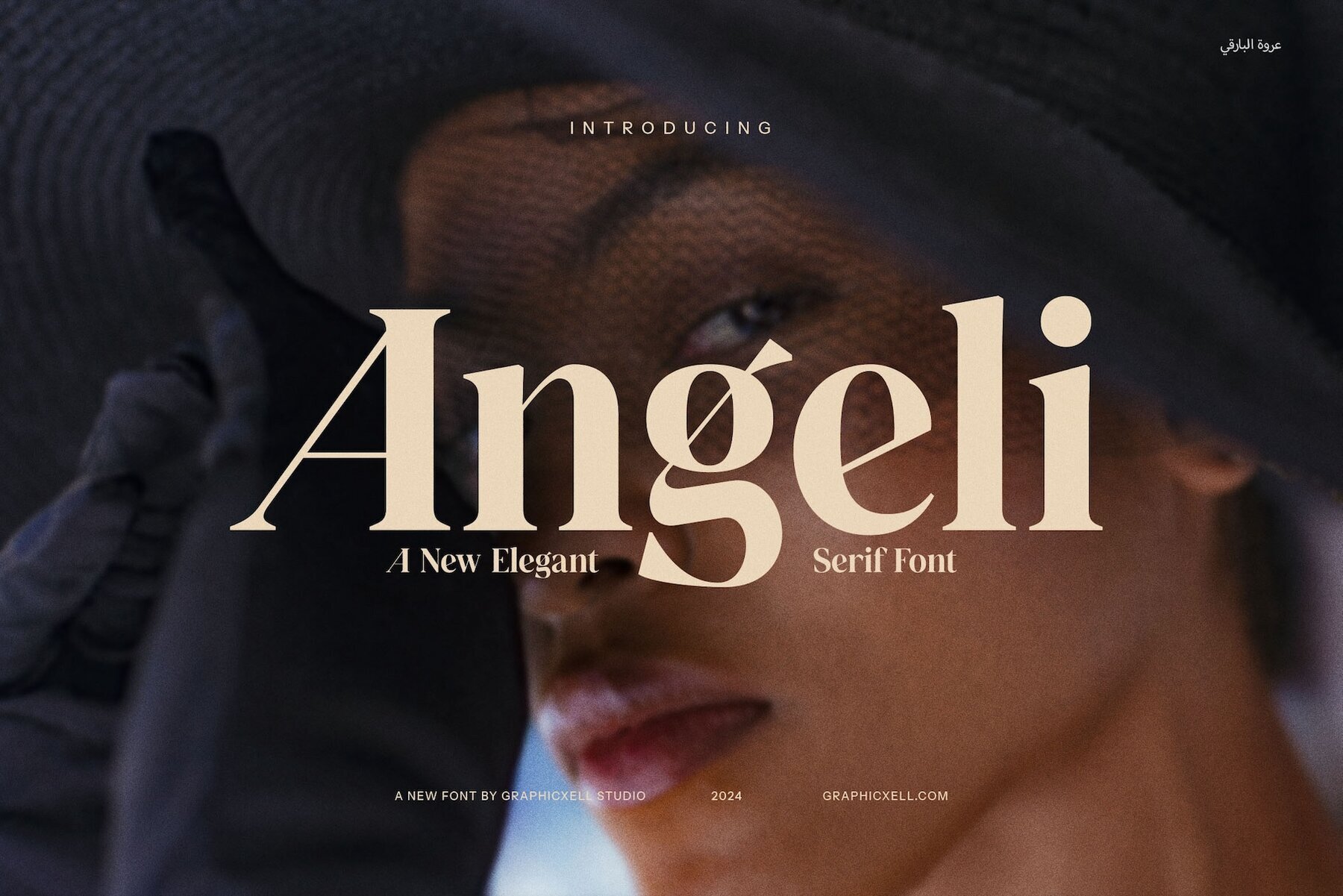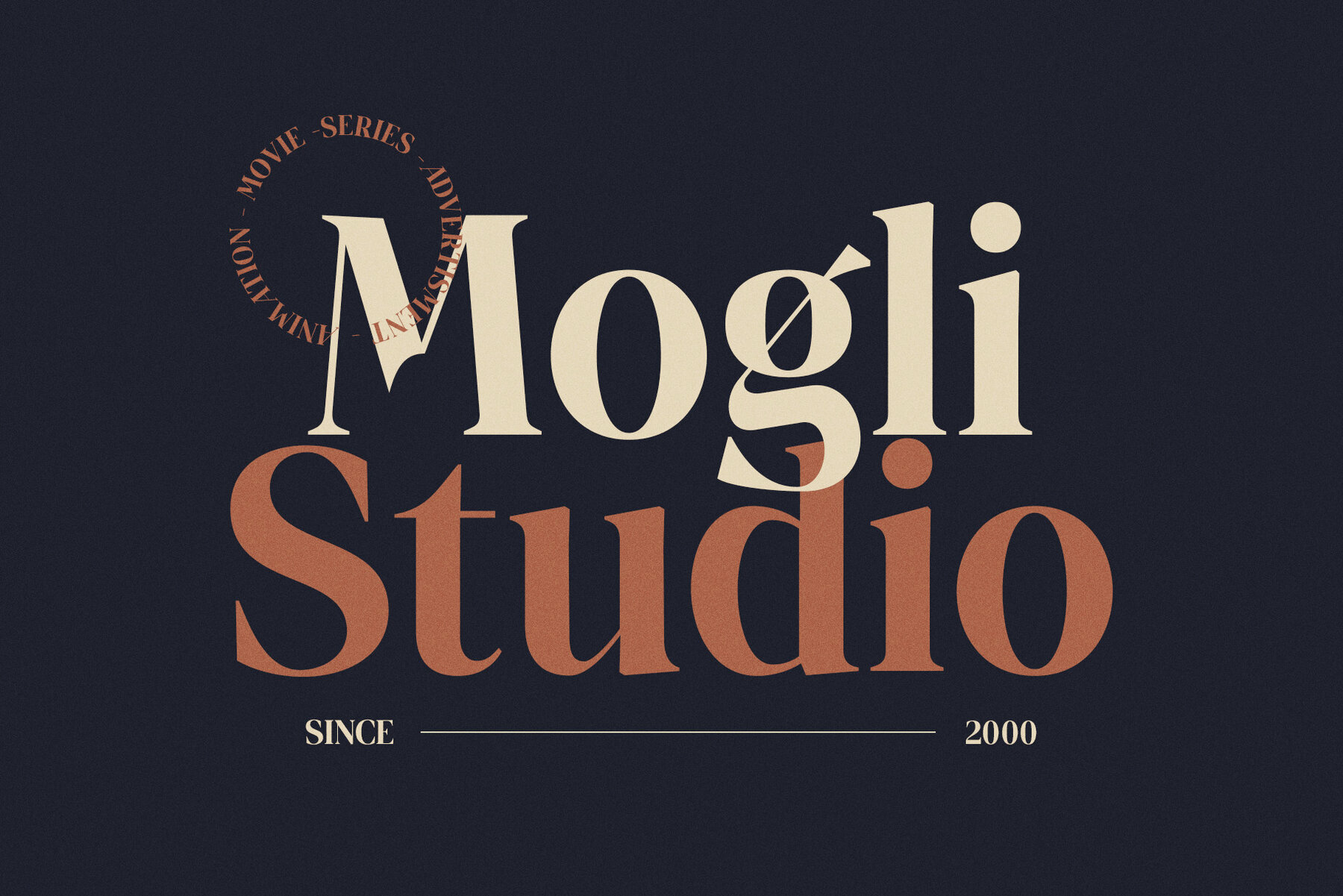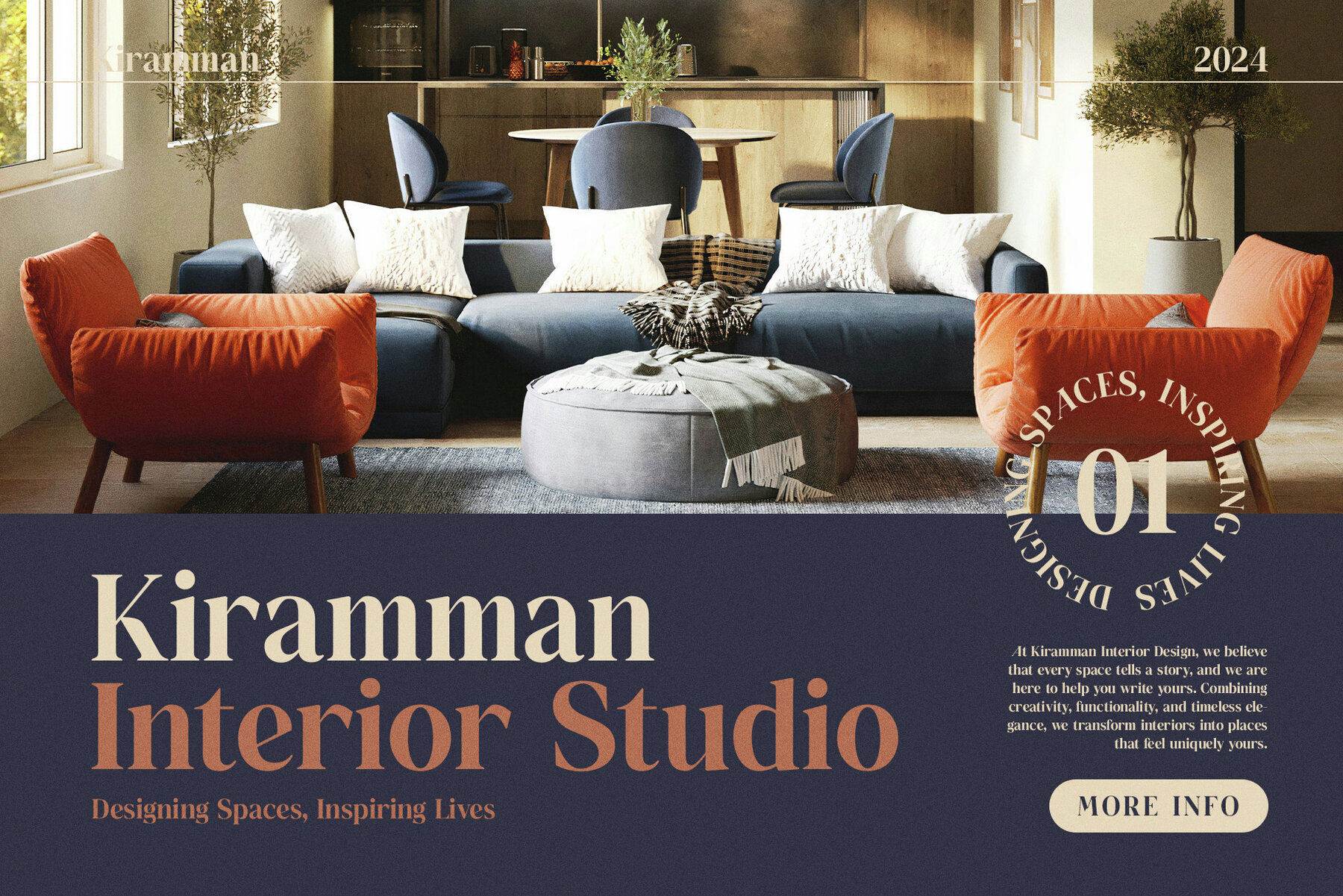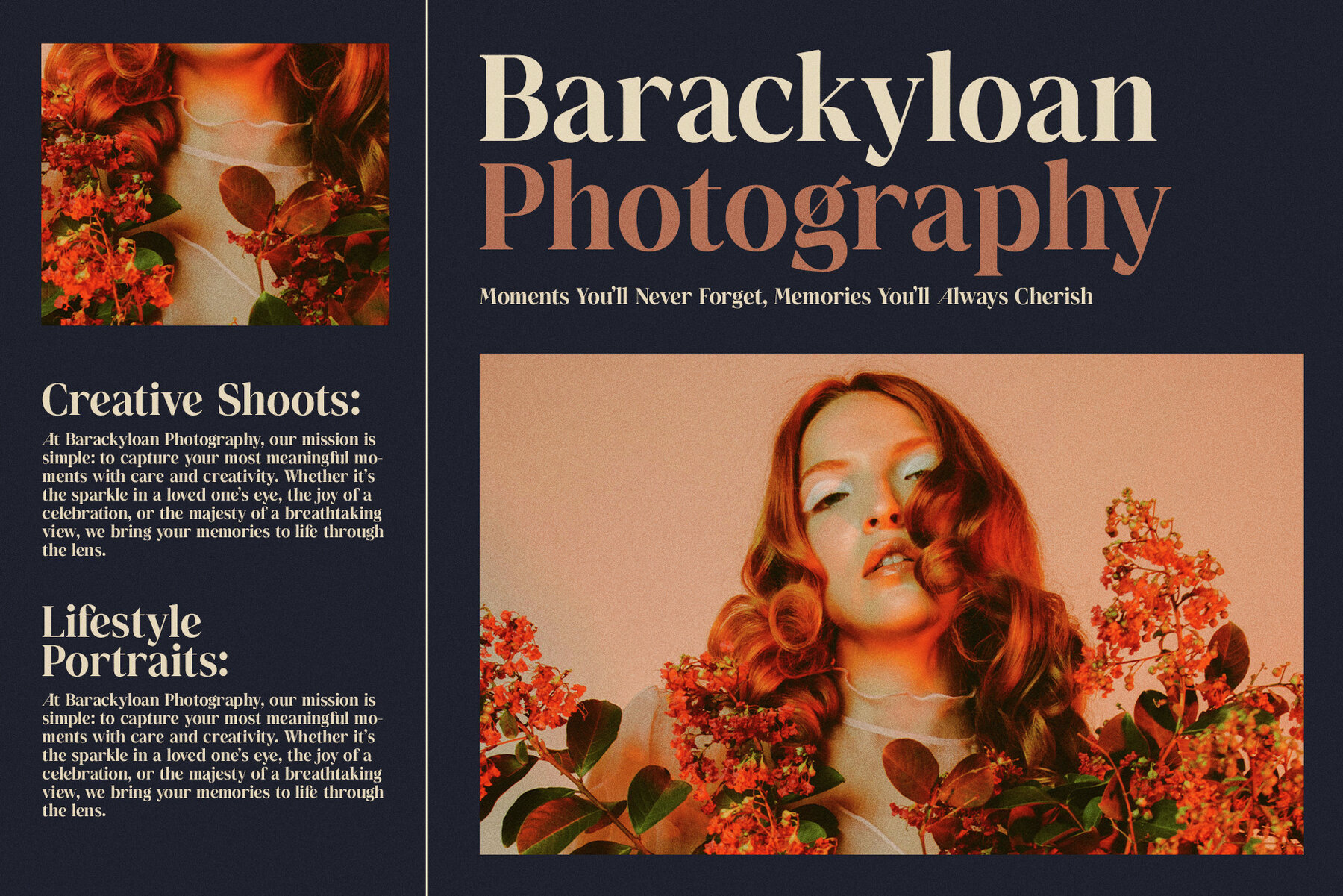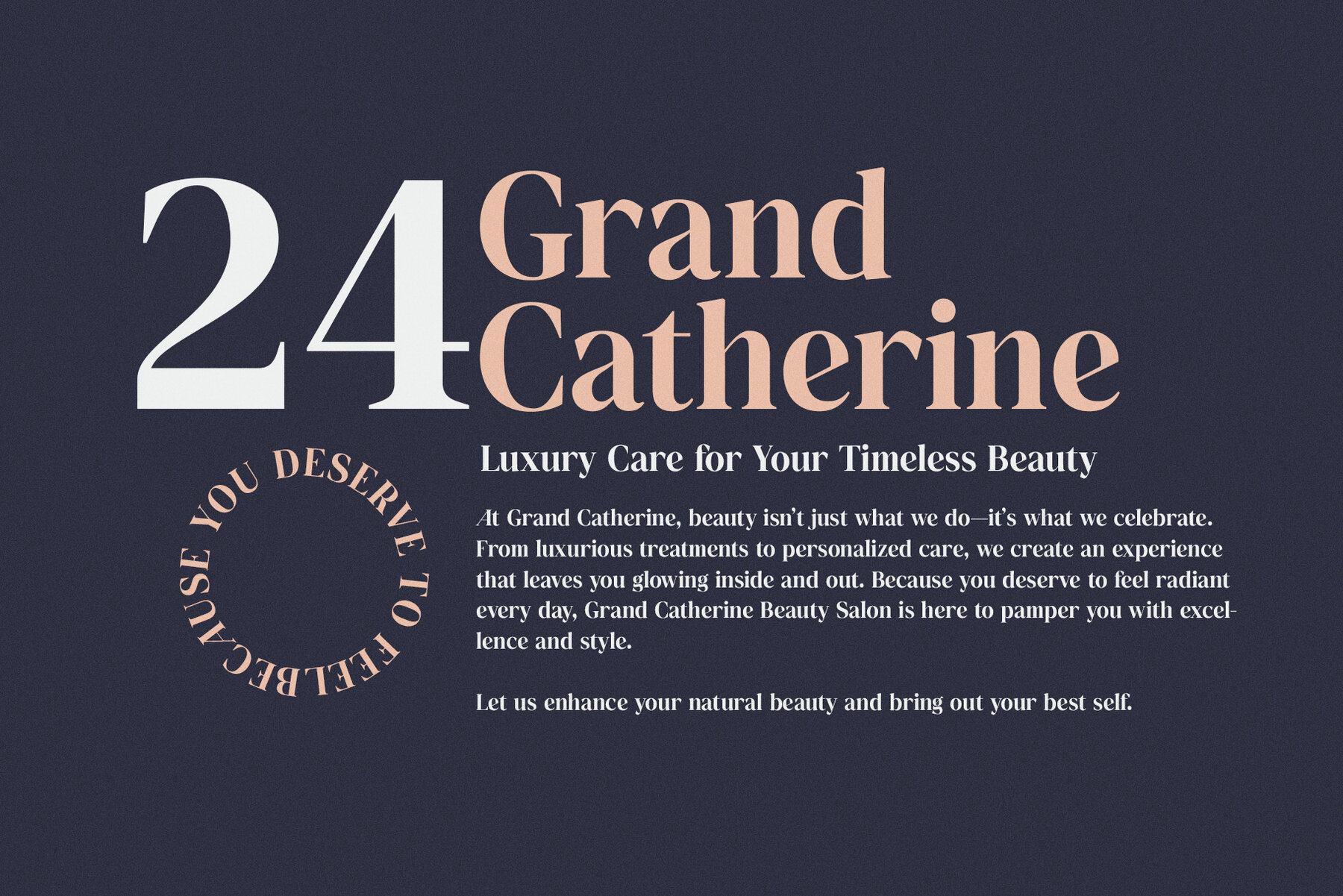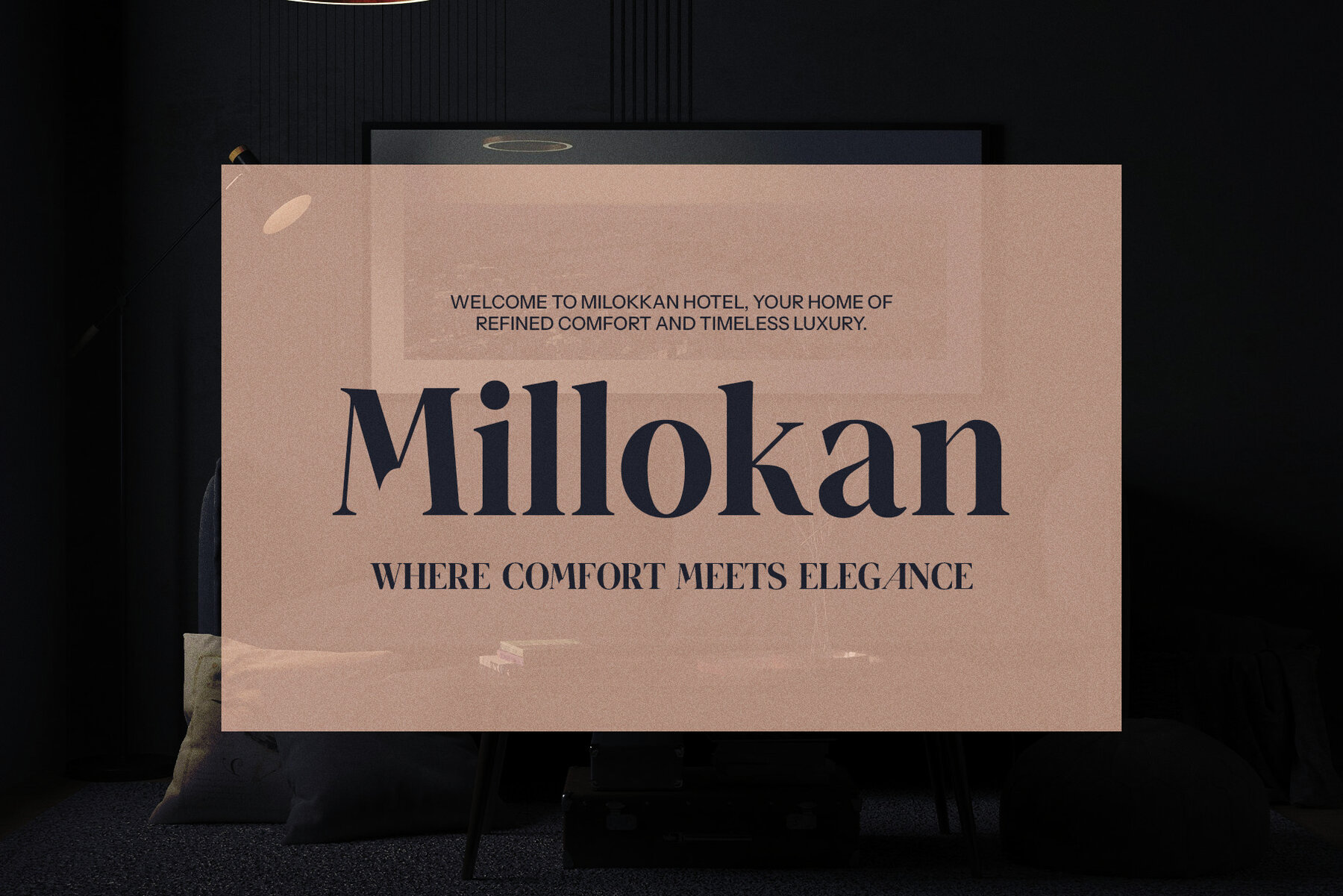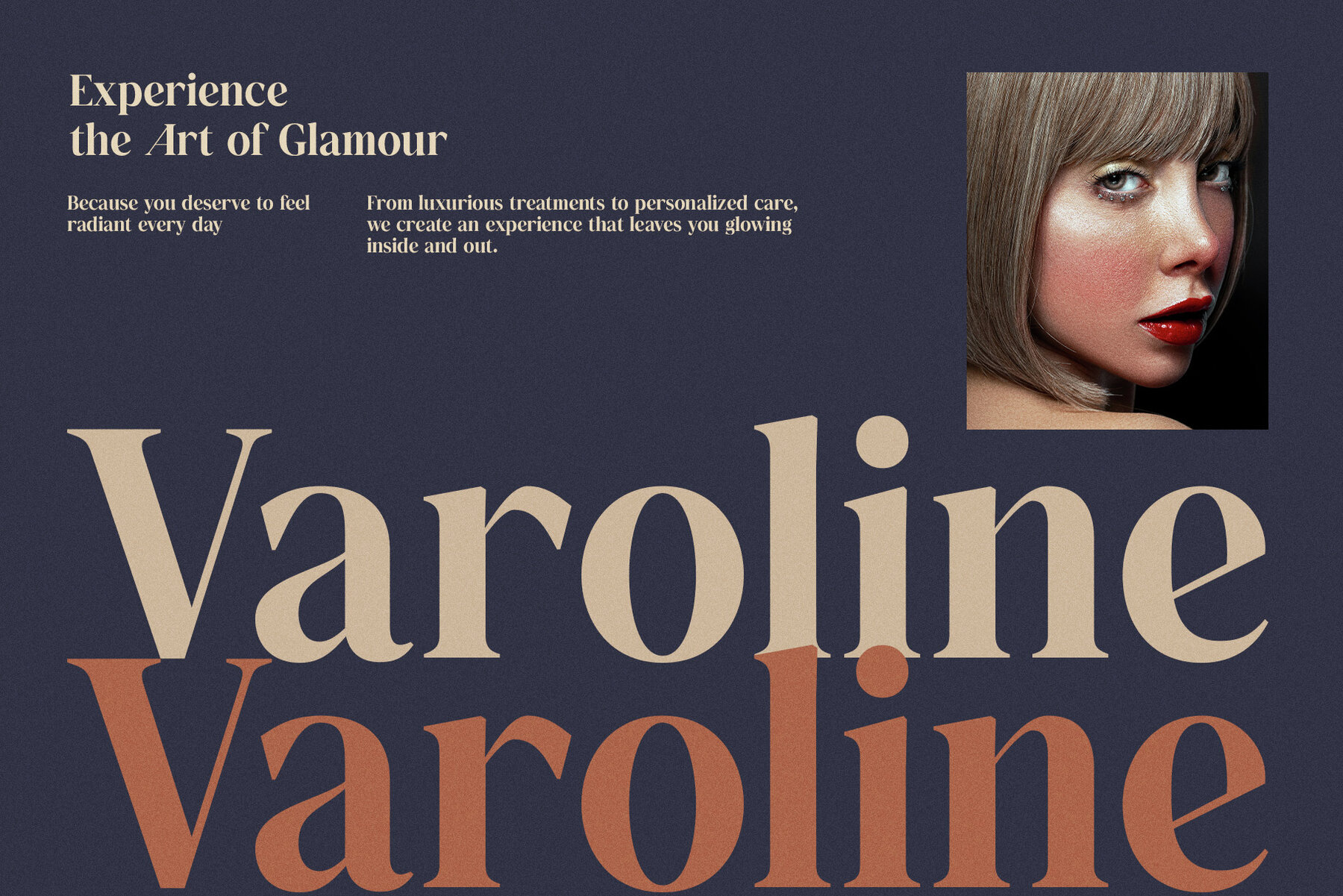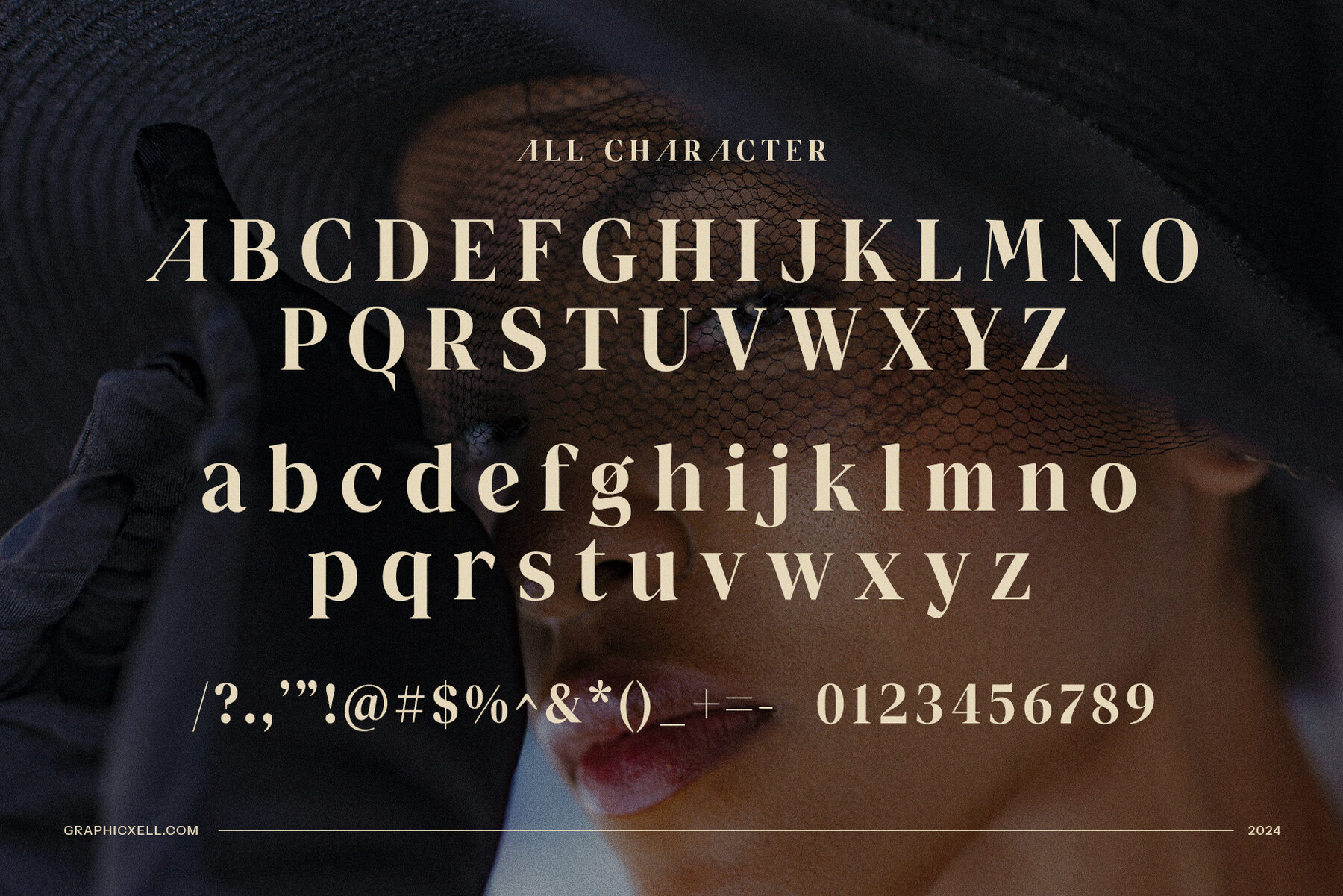
Angeli Font
Angeli
Angeli Elegant Serif Font is a sophisticated typeface that seamlessly combines modern design elements with timeless elegance. Its distinct serifs and refined letterforms suggest luxury, making it an ideal choice for high-end branding, exclusive logos, and chic websites. The unique character shapes and balanced forms of Angeli bring a graceful touch to any project, offering a premium and polished look that ensures your designs stand out.
Ideal for various design applications, Angeli excels in creating memorable logos, elegant product packaging, and stylish advertisements. Its versatility is evident across both print and digital mediums, making it an excellent selection for magazines, brochures, and layouts where clarity and sophistication are crucial. Whether used for boutique branding, food packaging, or website headers, Angeli effectively communicates your message with class and distinction.
Beyond its striking appearance, Angeli provides excellent legibility across both large and small sizes, ensuring a seamless user experience. Its refined design is perfectly suited for luxury brands, editorial content, and high-end marketing materials. With its modern and beautiful aesthetic, Angeli adds a fresh, stylish touch to any project, embodying the perfect balance of beauty and functionality. This typeface is more than just a font; it’s a statement of elegance and professionalism.